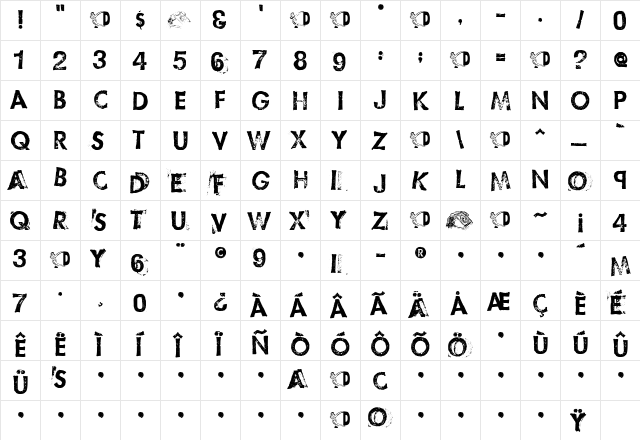
Rubberduck Regular
Design Context for Rubberduck Typeface
Rubberduck is a composed and adaptable typeface that performs quietly and consistently across a wide range of design contexts.